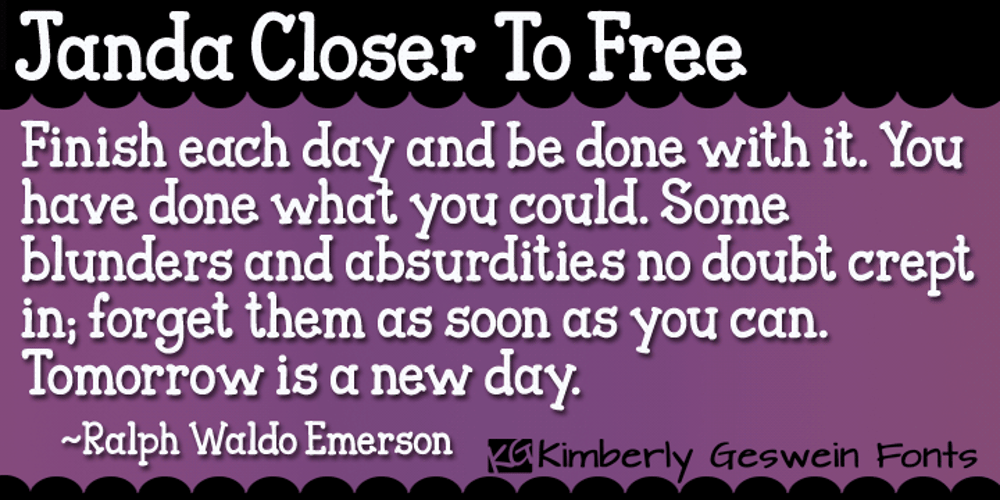
Janda Closer To Free Font Family was designed by Kimberly Geswein and published by Kimberly Geswein. Janda Closer To Free contains 1 styles and family package options. This chunky serif handwriting is fun but still completely legible for children.